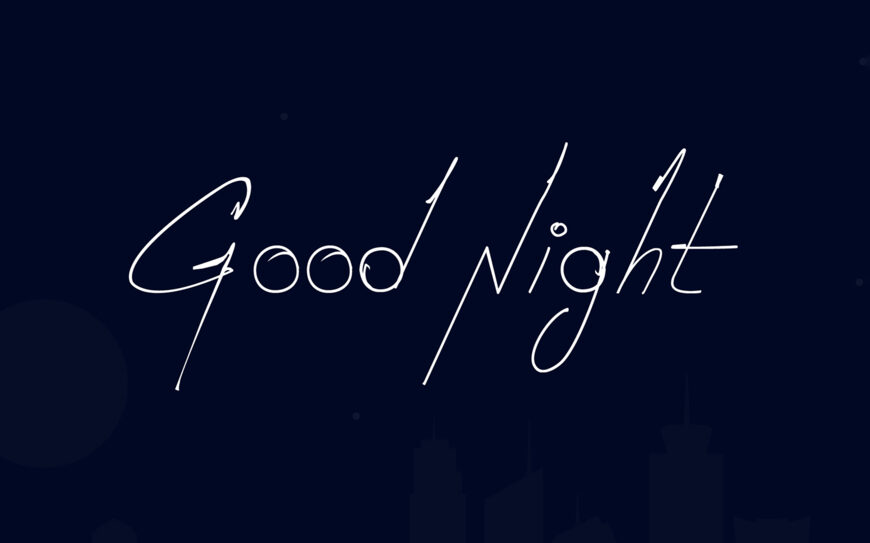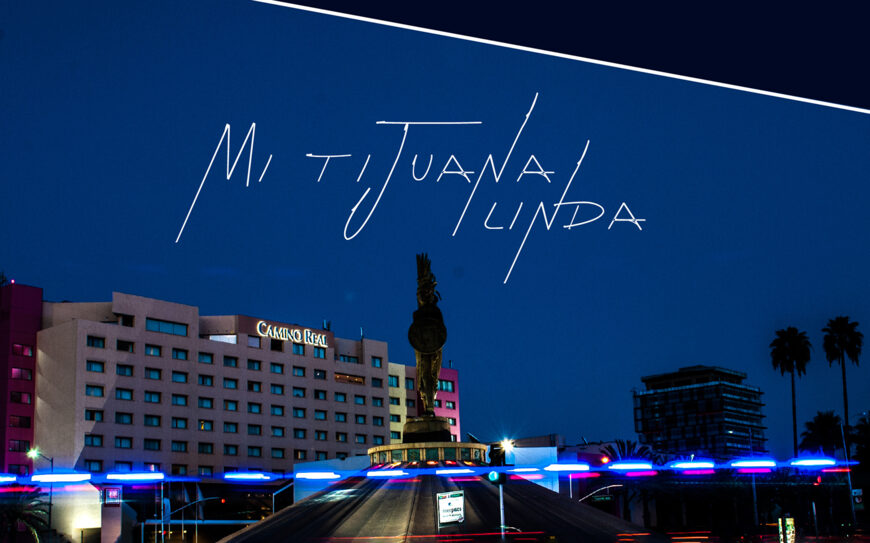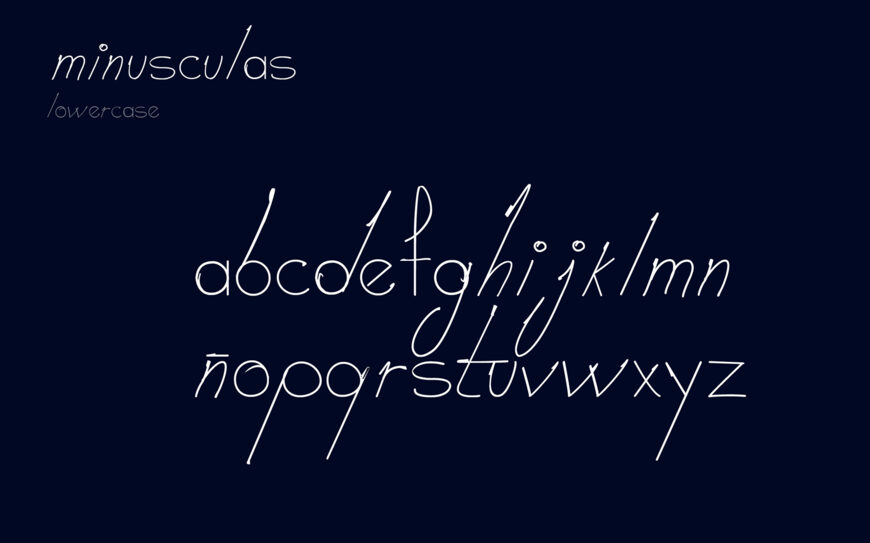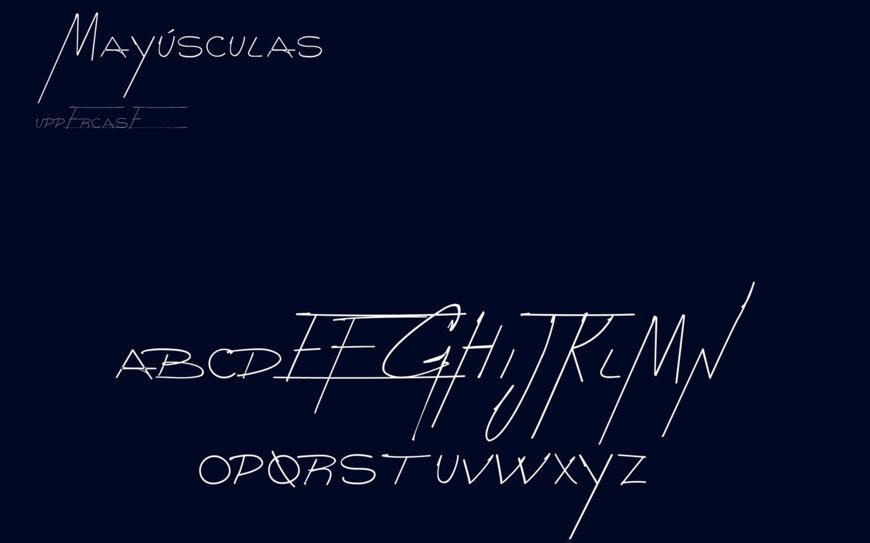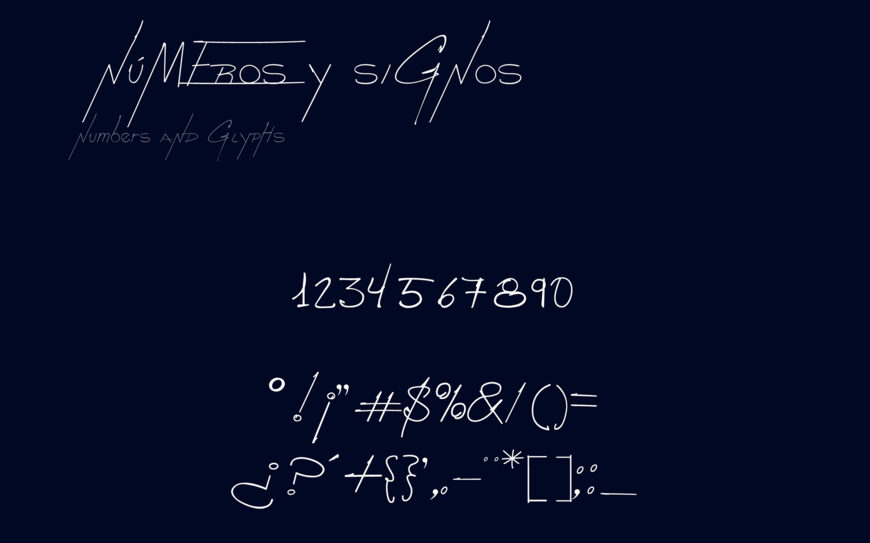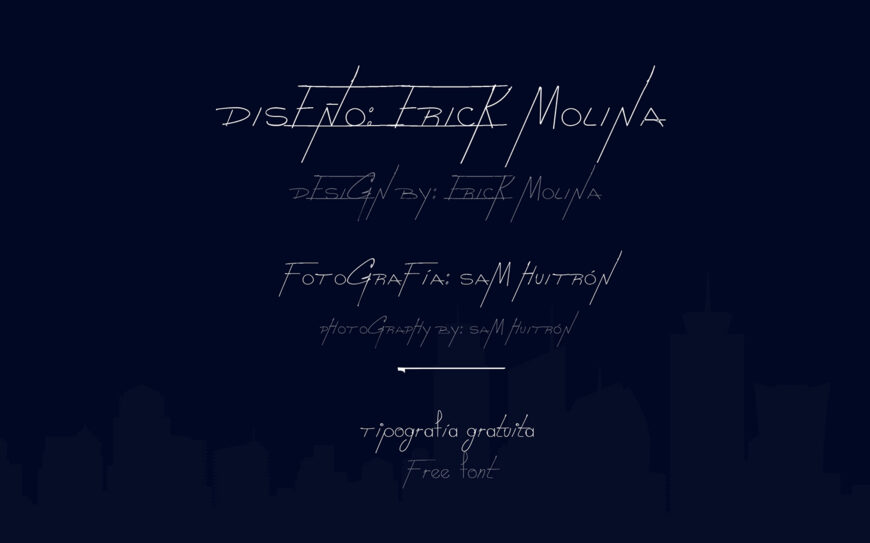
Good Night is an elegant script font inspired directly by designer Erick Molina’s personal handwriting. Featuring slim, flowing letterforms and a delicate, expressive slant, it captures the natural rhythm of pen on paper with dramatic ascenders, swooping descenders, and extended swashes.
The full character set includes uppercase and lowercase letters, numerals, punctuation, and Spanish characters like “ñ”. Its fluid, light-line aesthetic makes it perfect for expressive branding, invitations, quote art, creative headers, and dreamlike visual designs.